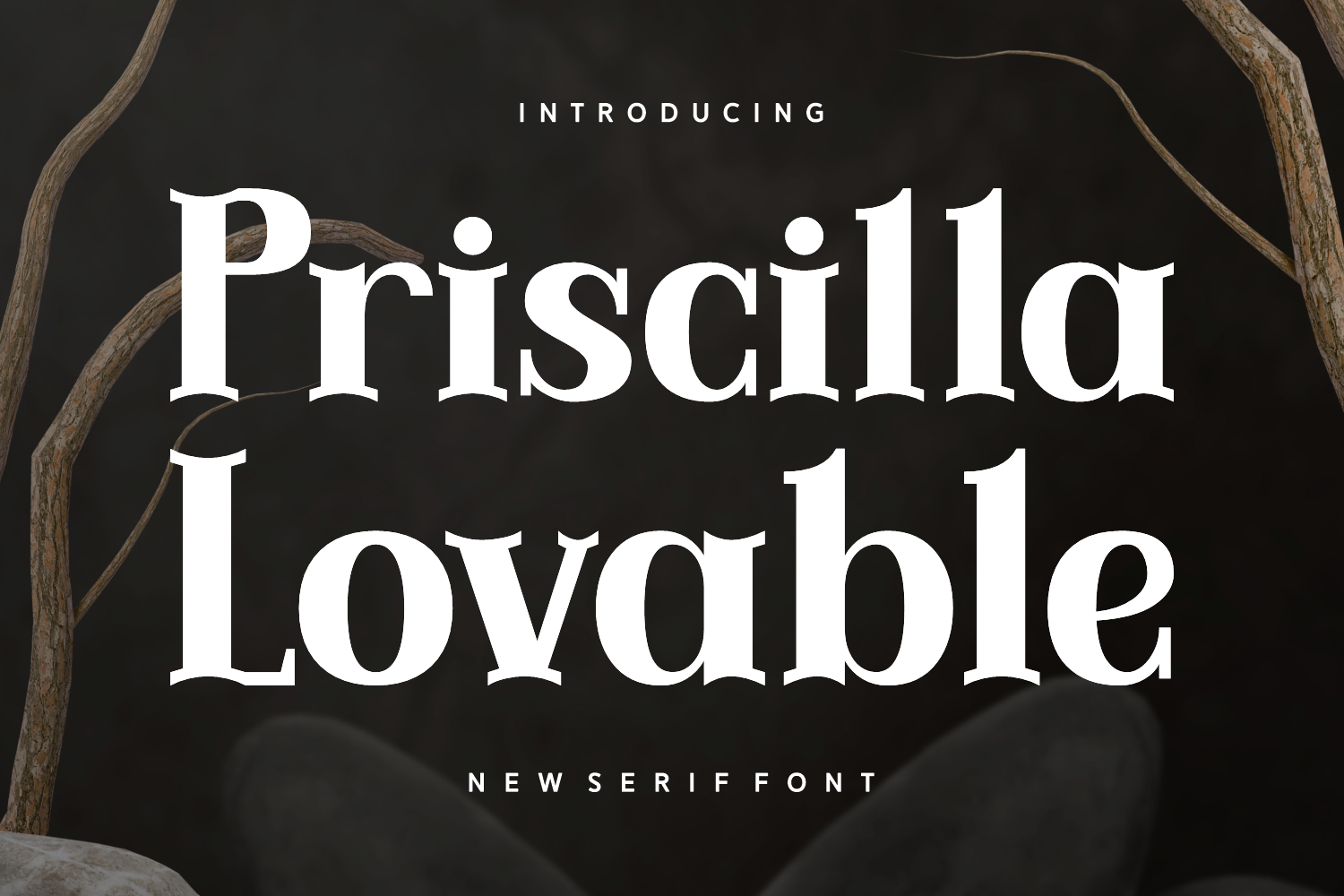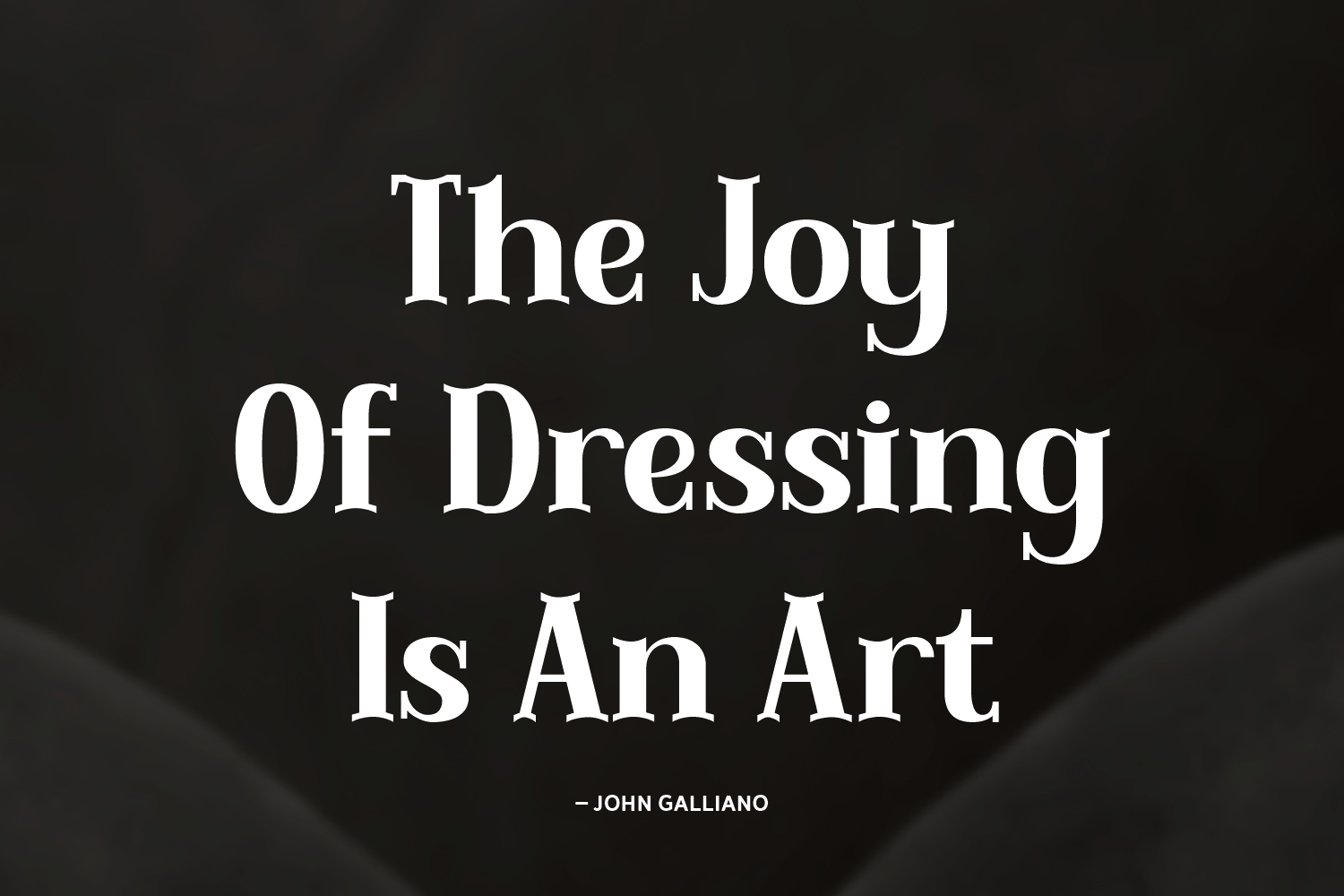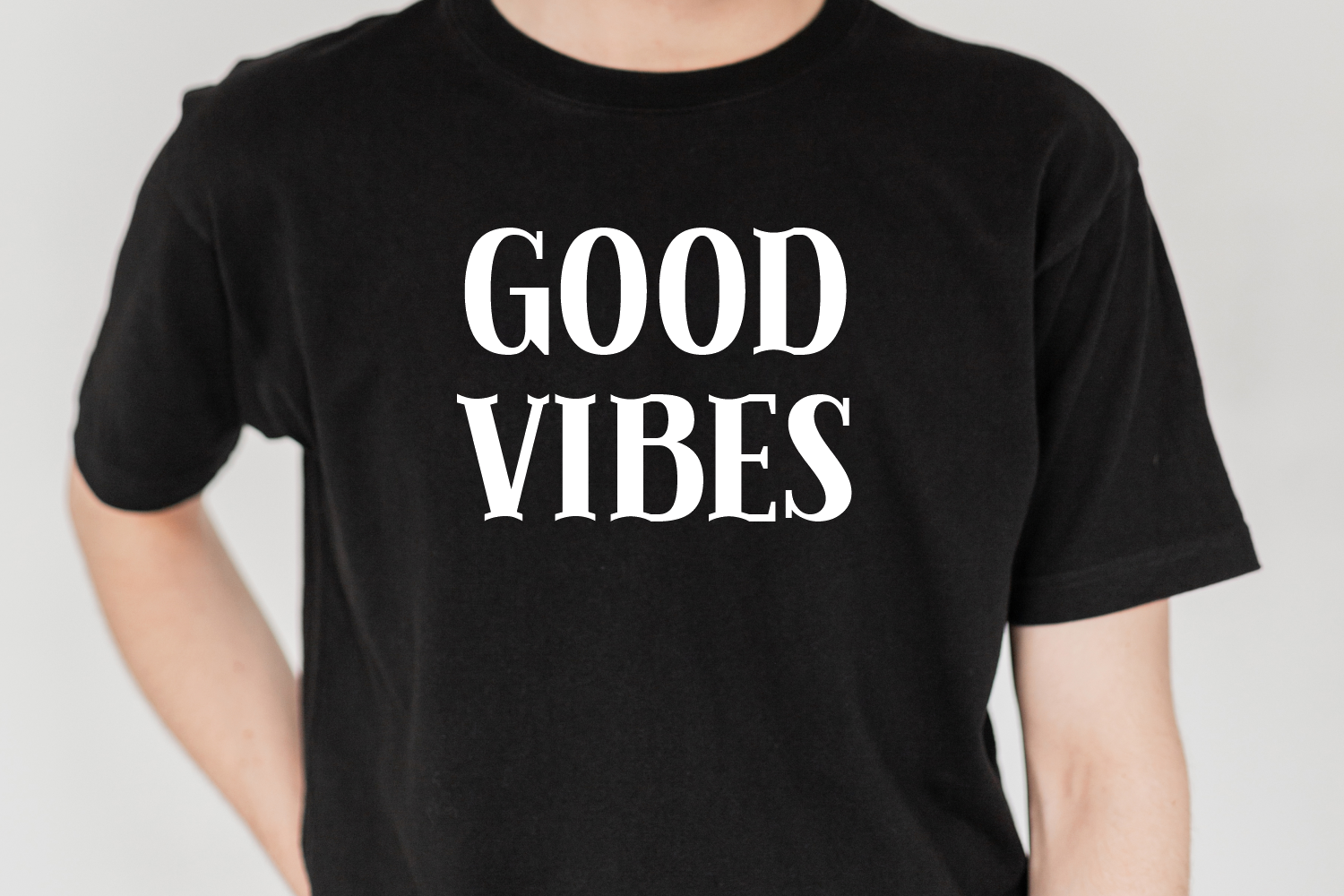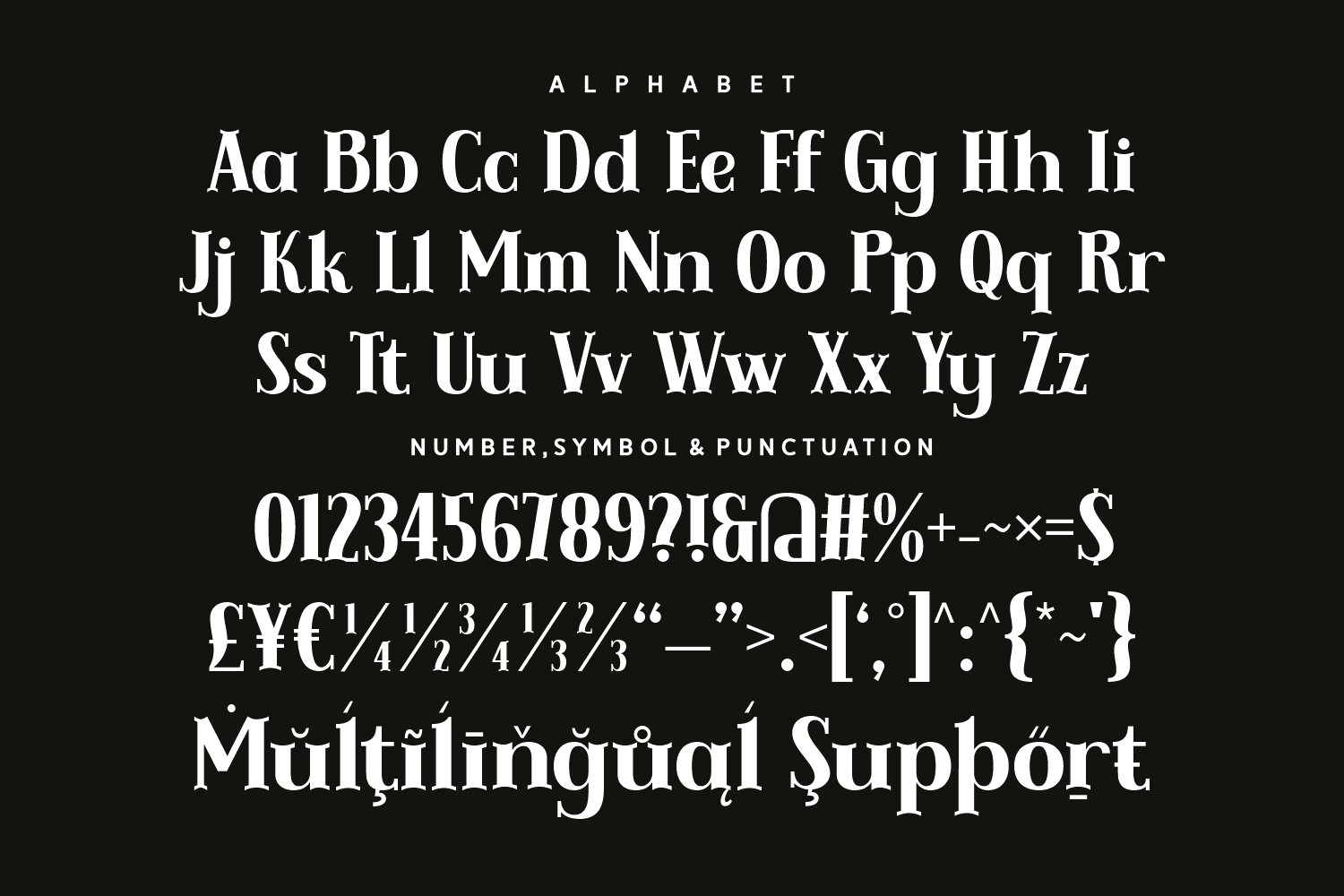
Priscilla Lovable
Priscilla Lovable is a bold, charming serif font that blends strong structure with playful curves. It strikes the perfect balance between classic elegance and modern flair, making it ideal for eye-catching designs with a warm, confident tone.